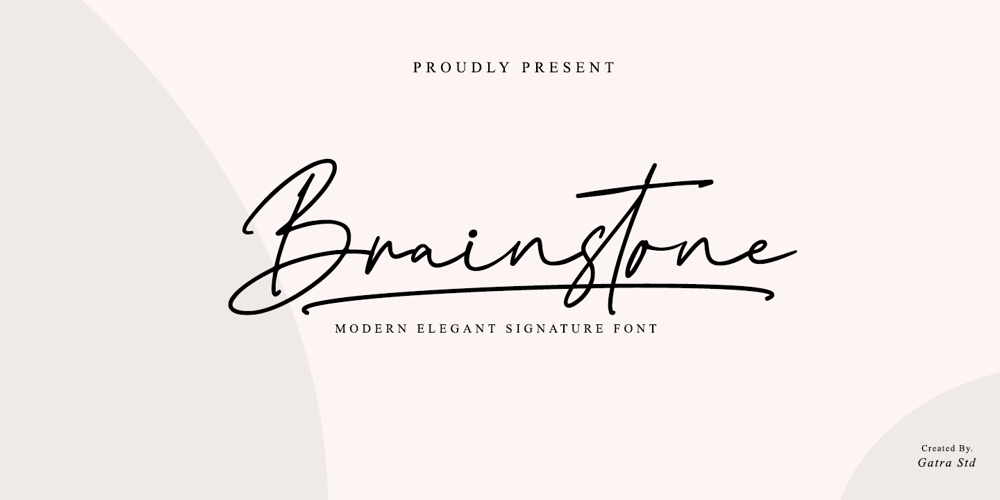
Brainstone
Brainstone font
Brainstone Font Family was designed by Wahyu Edhi Widodo and published by Gatra Std. Brainstone contains 1 styles and family package options. Modern&elegant “Brainstone” signature script.If you are needing a touch of casual elegant signature script for your designs, this font was created for you!What’s Included: Uppercase and Lowercase Ligatures Alternates Number and Punctuation Support Language This font works best in a program that supports OpenType features such as Adobe Indesign, Adobe Illustrator CC and CS, or Adobe Photoshop CC and CS also CorelDrawMore Questions? Here are some (potential) answers!Multilingual Support is included for Western European Languages